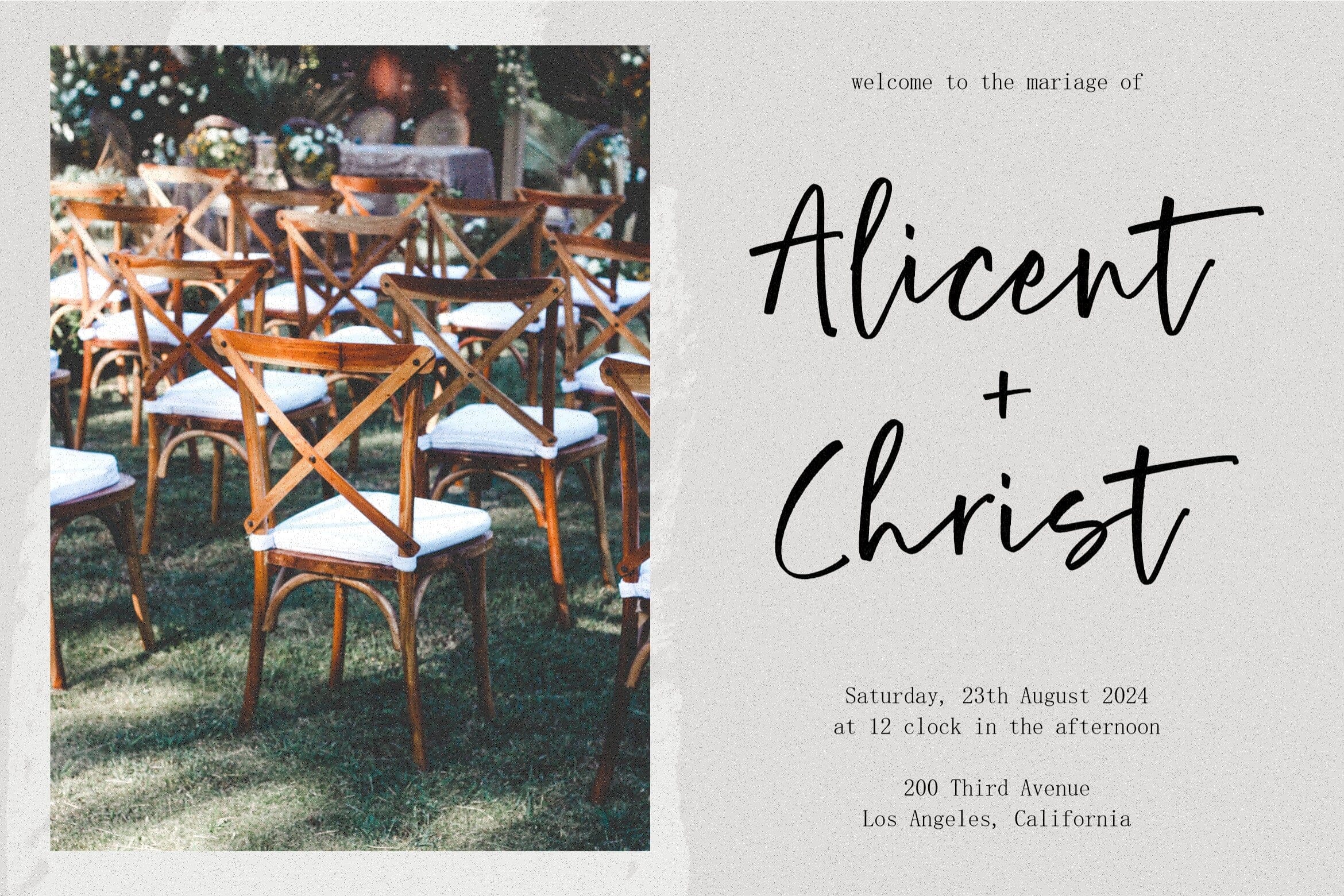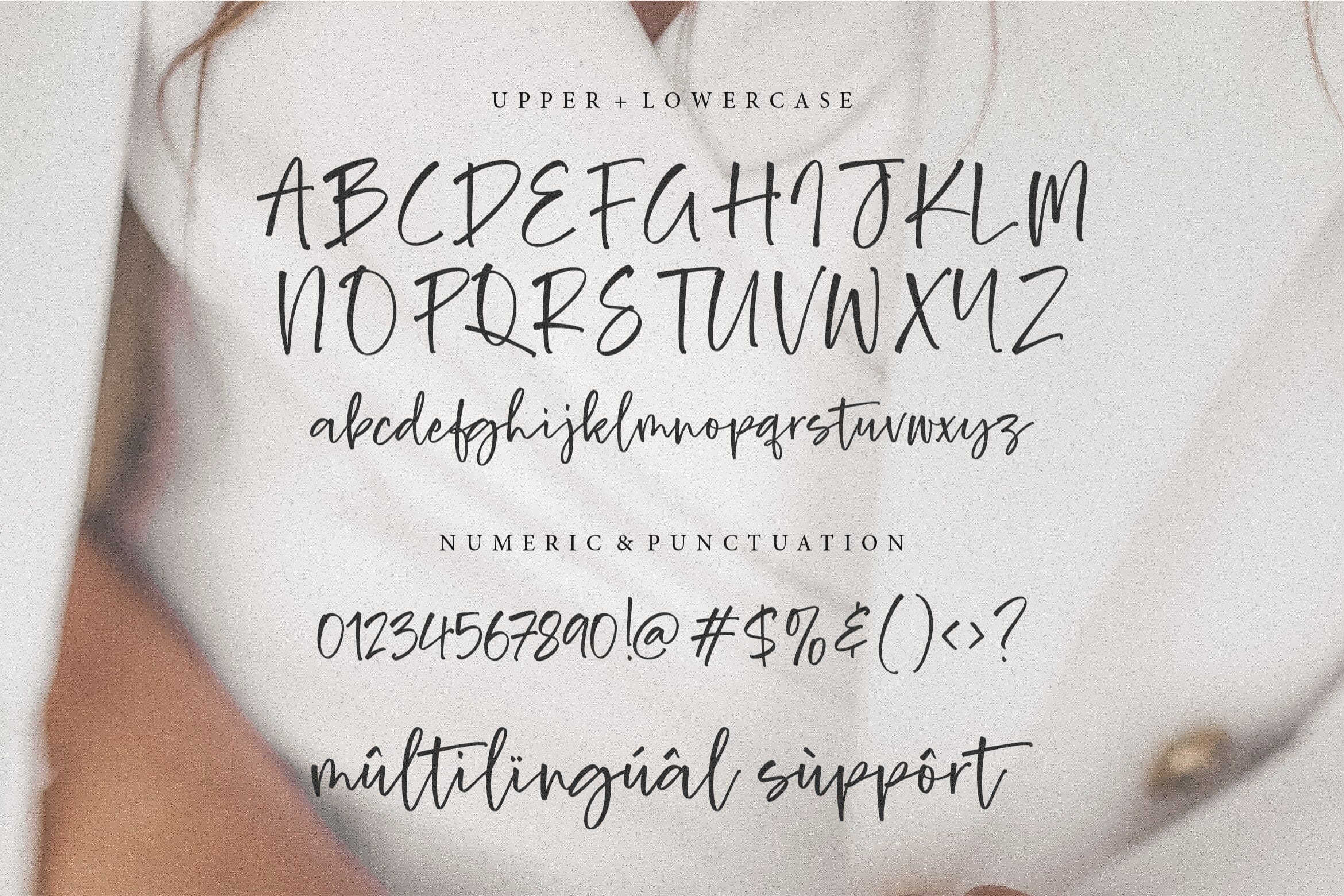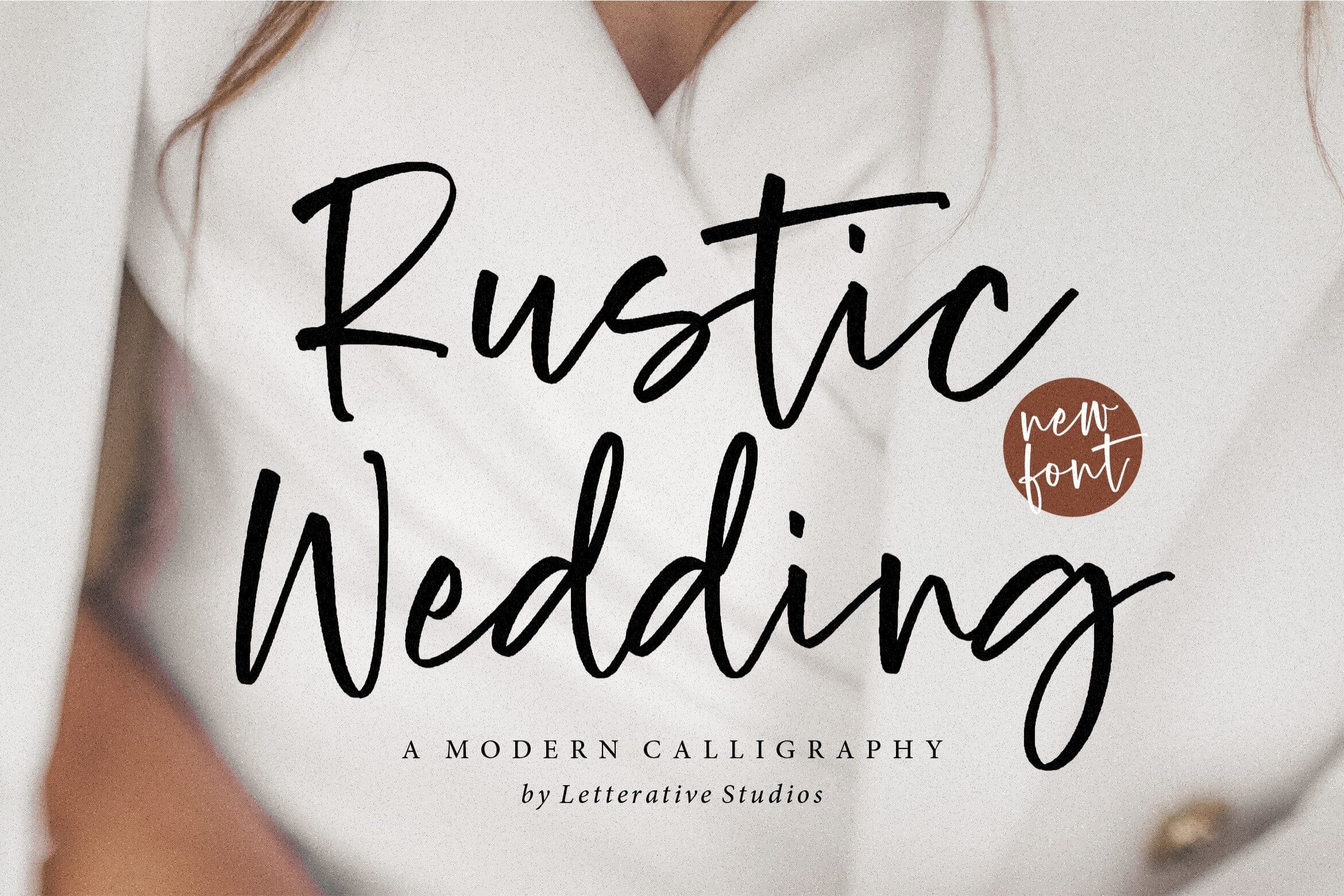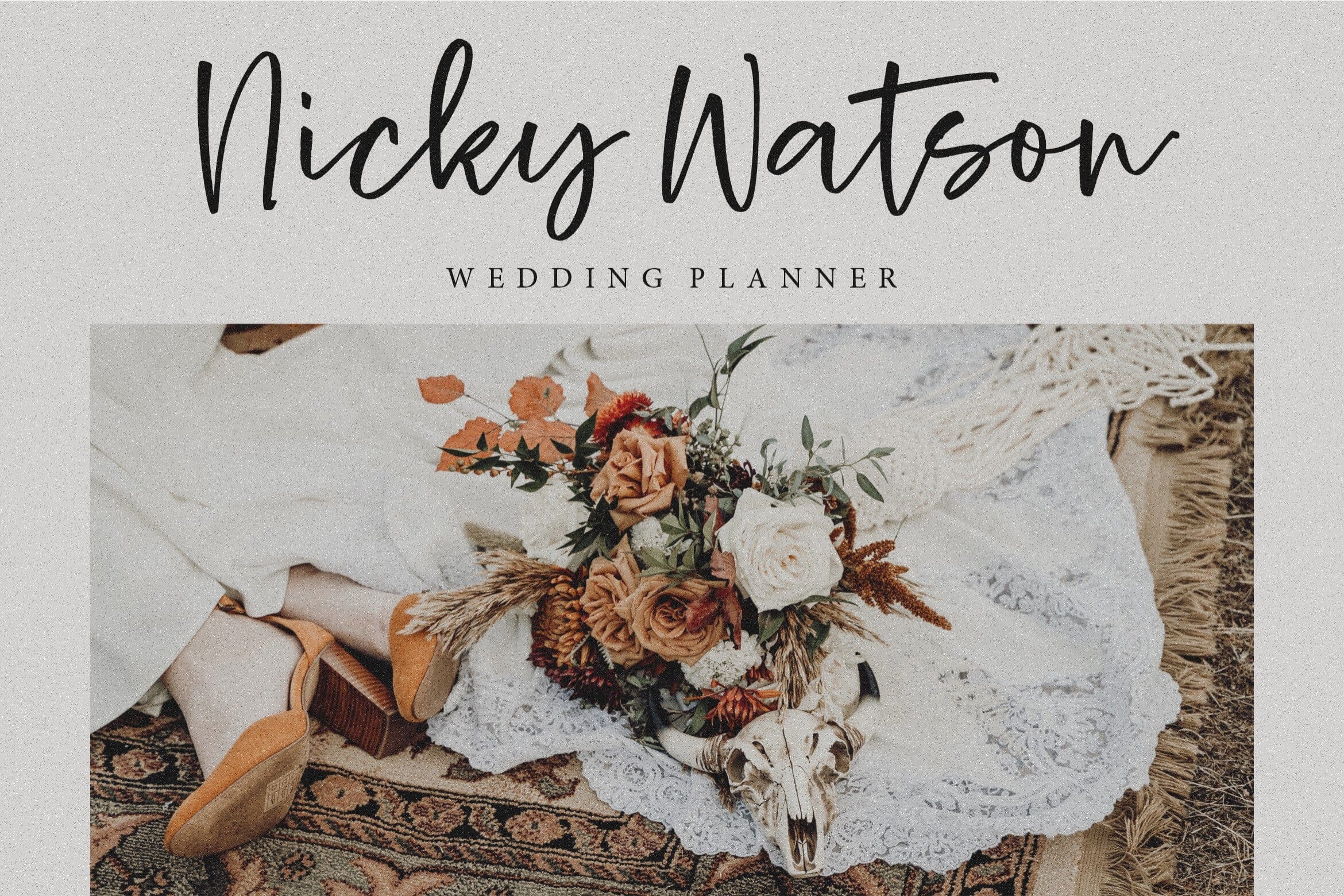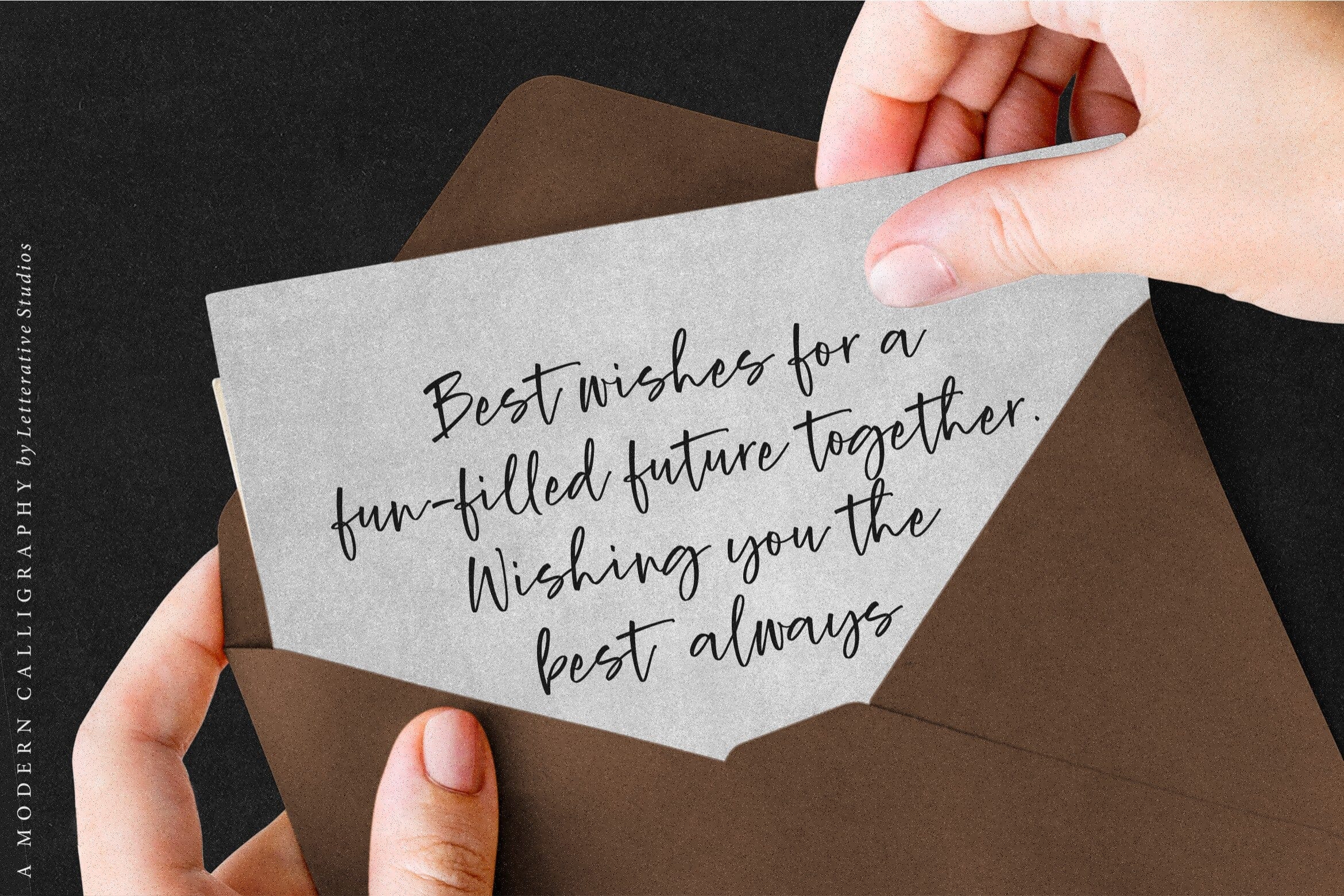
Rustic Wedding Modern Calligraphy Font
About Rustic Wedding Modern Calligraphy Font
Introducing by Letterative Studio : Rustic Wedding Font Rustic Wedding is a Modern Calligraphy Font. Whether you’re using it for crafts, digital design, presentations, or making greeting cards, this font has the potential to become your favorite go-to font, no matter the occasion! This font includes : – TTF, OTF and WOFF – also multilingual support Enjoy the font! Feel free to comment or feedback Send me PM or email Thank you!